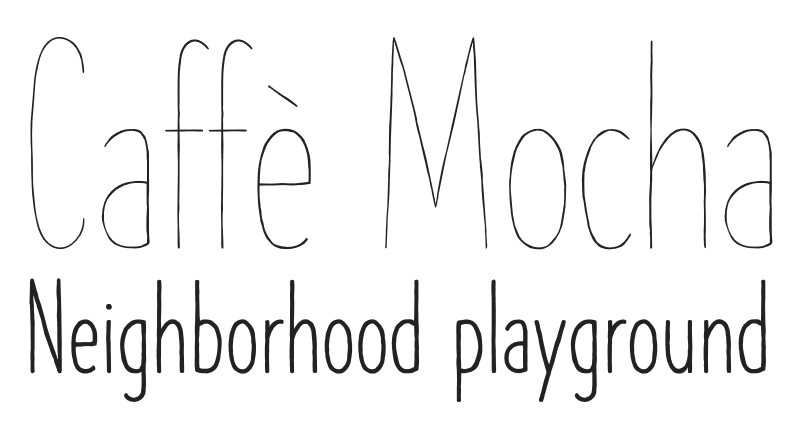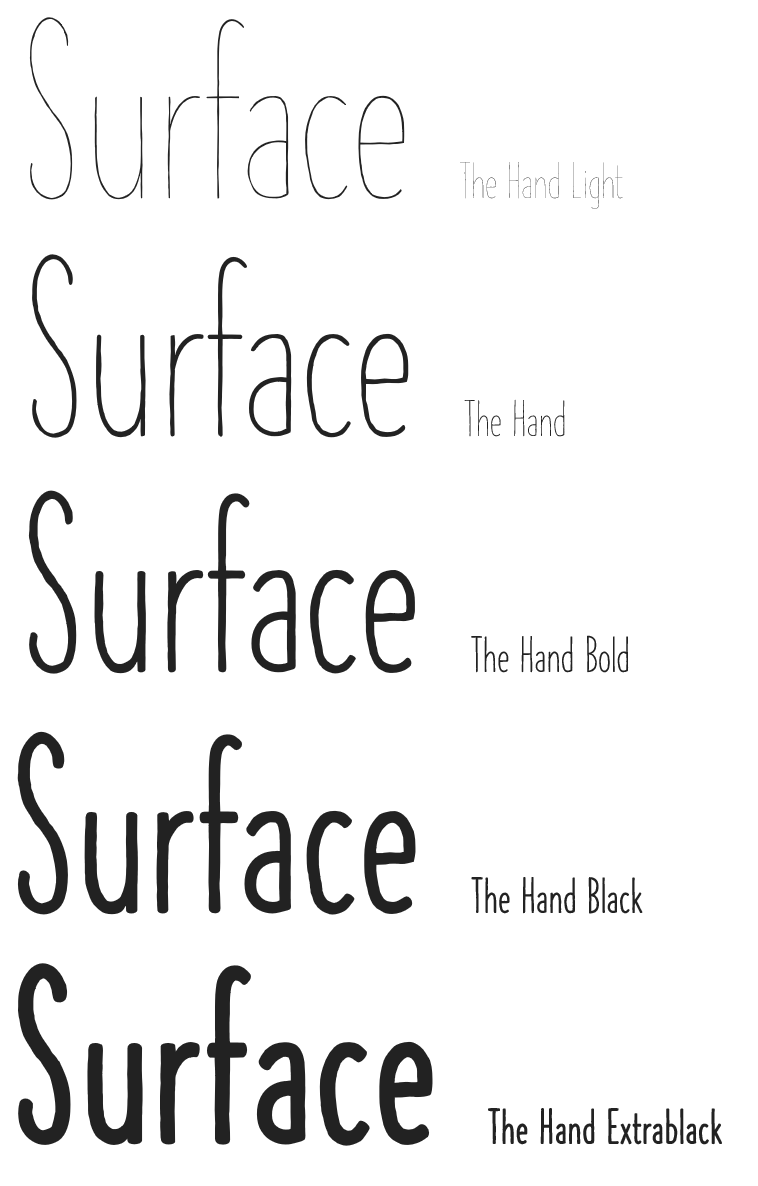
The Hand is a handwritten font designed by Fanny Coulez and Julien Saurin in Paris. We wanted to create the most generic, readable and finely balanced handwritten font, to work well in every kind of design. We hope you will enjoy our work. Merci beaucoup! – fonts.com
In 2019 we reviewed the set of fonts provided with Office identifying stylistic gaps. The result of that effort was the addition of over a hundred new fonts, including classics like Avenir Next LT Pro and Walbaum along with contemporary designs like The Hand, Sagona and Modern Love. These new fonts are available in most Office applications and have been used in a range of new templates.
| Styles & Weights | The Hand Black The Hand Bold The Hand Extrablack The Hand Light |
| Designers | Coulez Fanny Saurin Julien Julien Saurin Fanny Coulez |
| Font vendor | S&C Type |